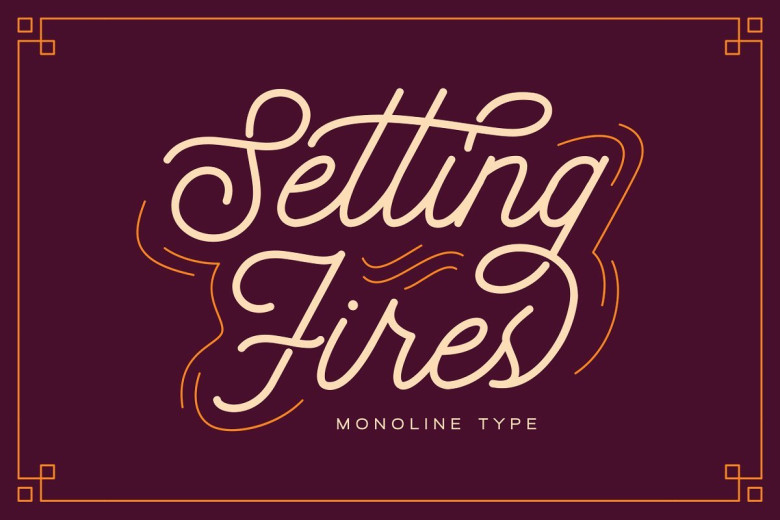
Seting Fires Monoline Type
Hi Welcome! Thank you for looking Setting Fires Script Font. This is beautiful monoline script font. Perfect for a design that stands out even if it’s a logo, or simply a stylish text over an background image! Seting Fires designed by dharmas. Seting Fires Monoline Type is a beautiful, sweet style, vintage monoline touch with movement and grace. This is unique script for you. This font contain ligatures, so many stylistic alternate, swash. This font is also support multi language.
Setting Fires has an elegant and stunning as a display which makes it perfecf for branding projects, logos, wedding designs, social media posts, advertisements, product packaging, product designs, label, photography, watermark, invitation, stationery and any projects that need handwriting taste.